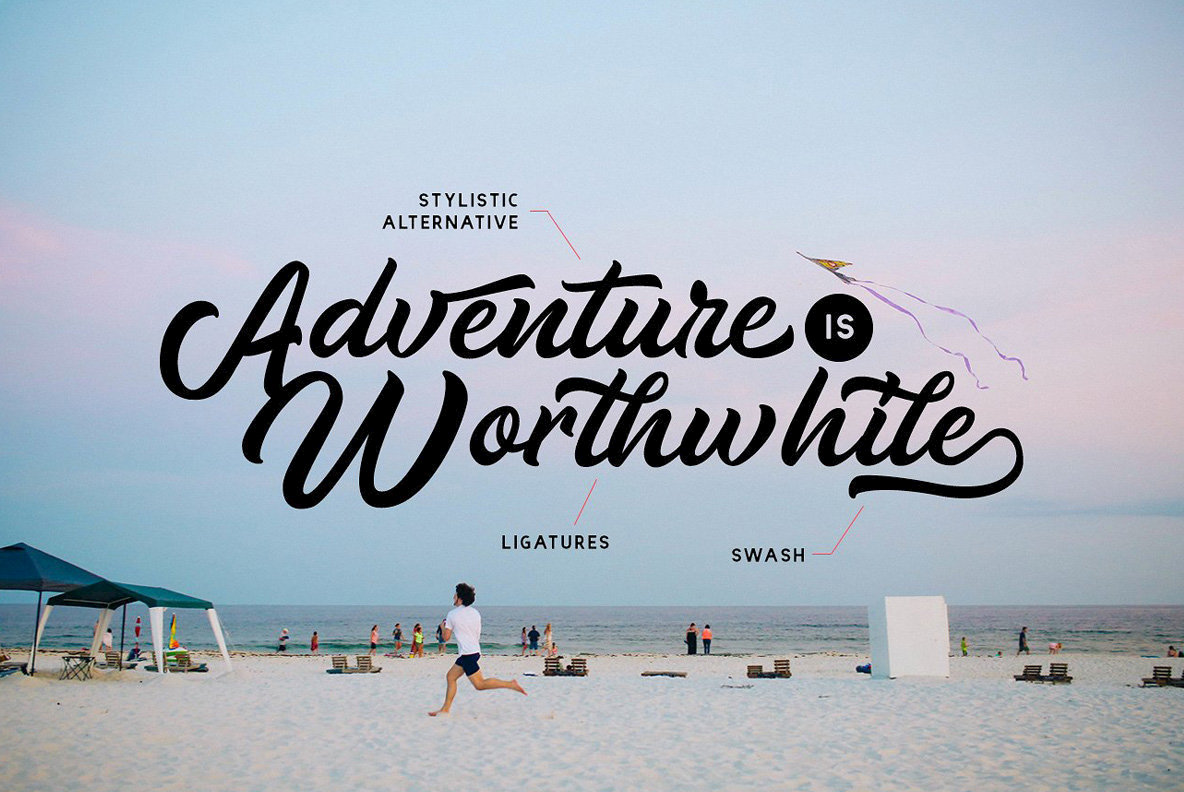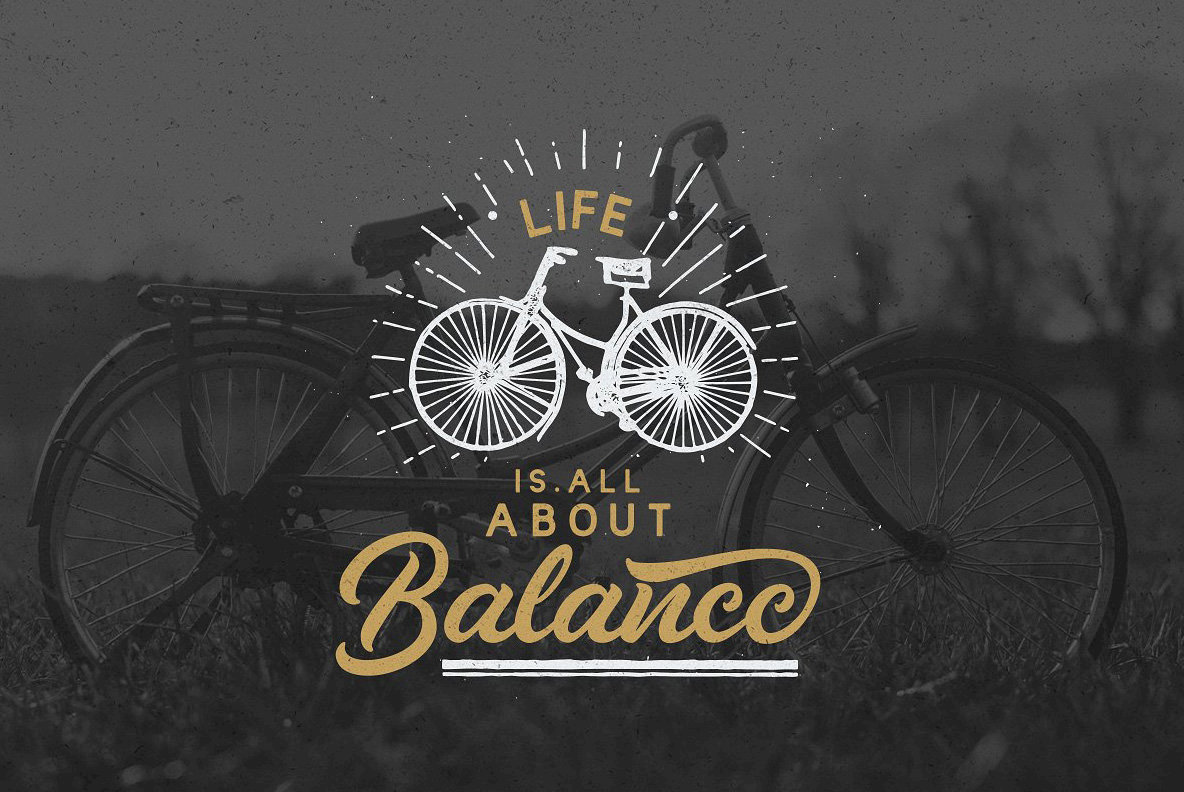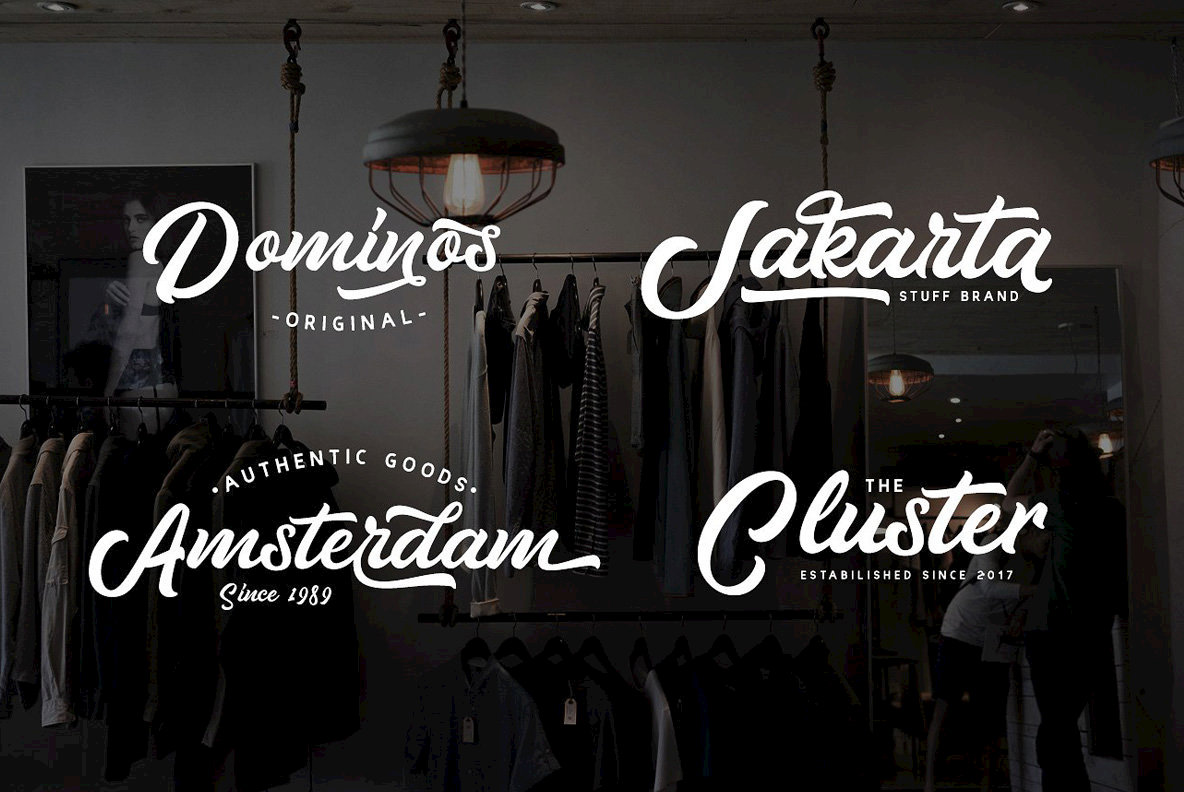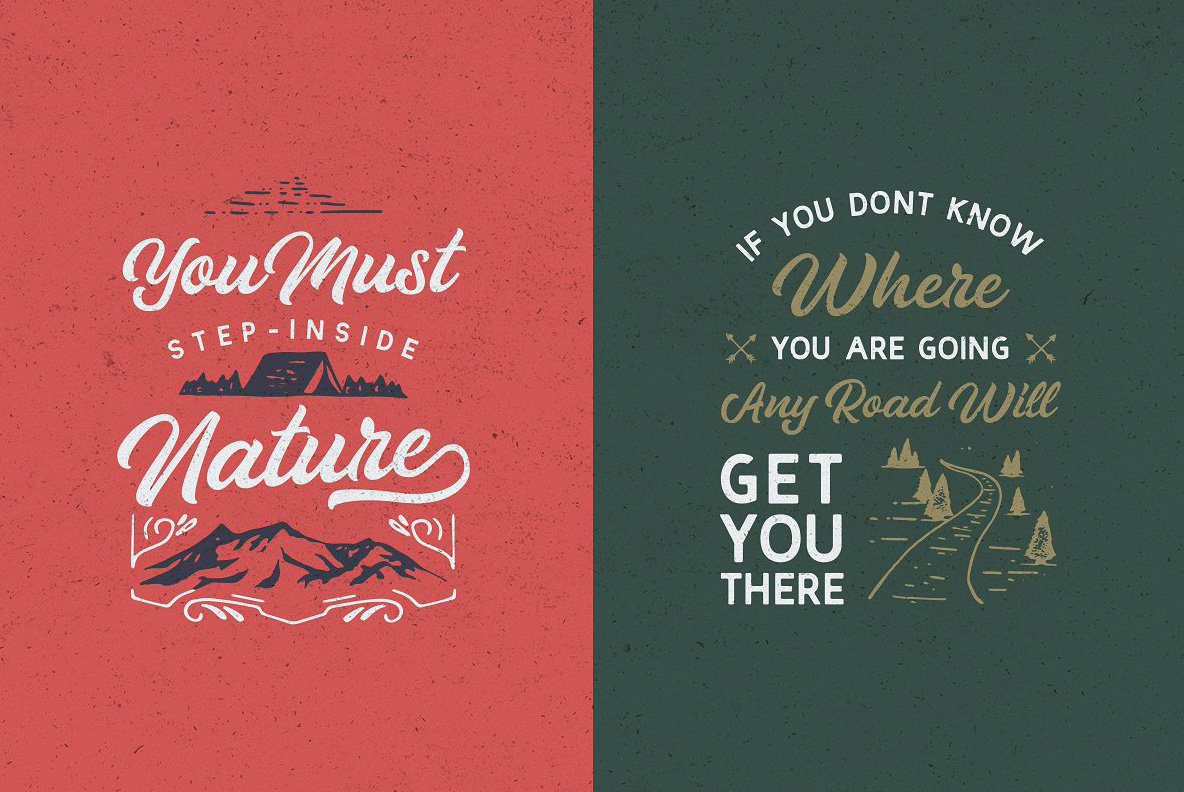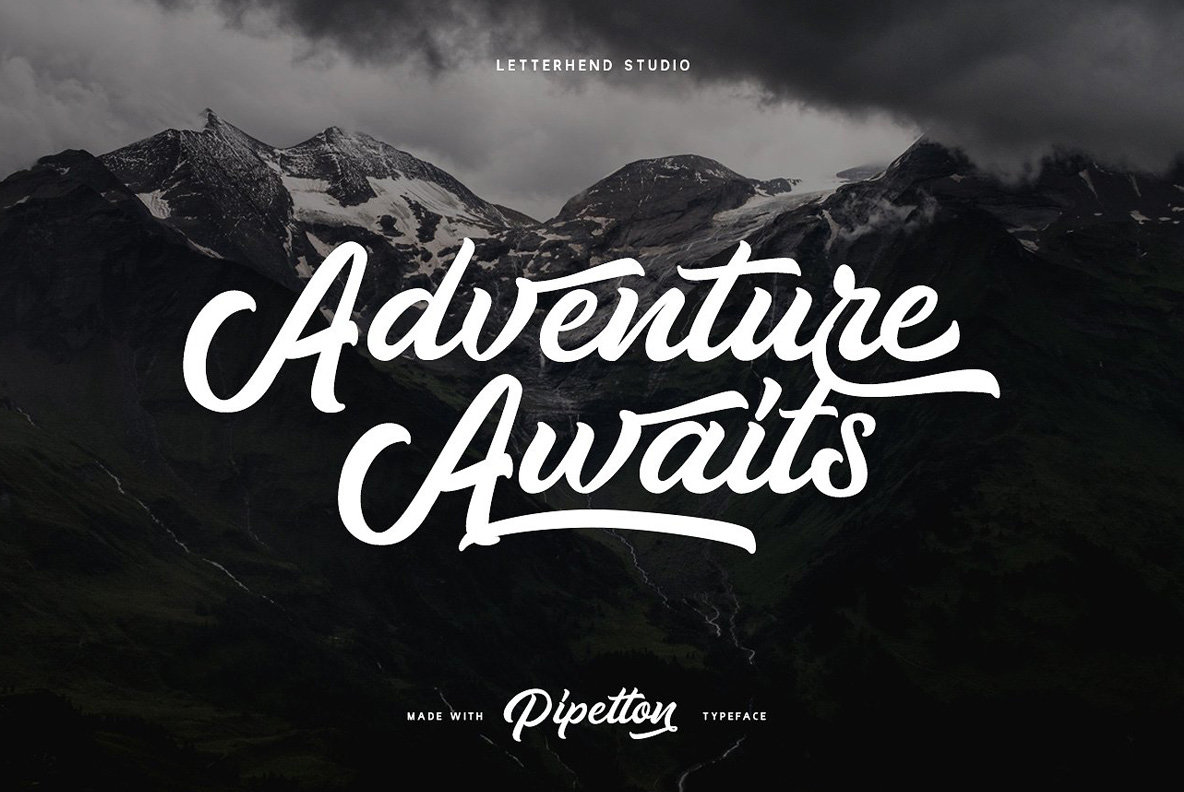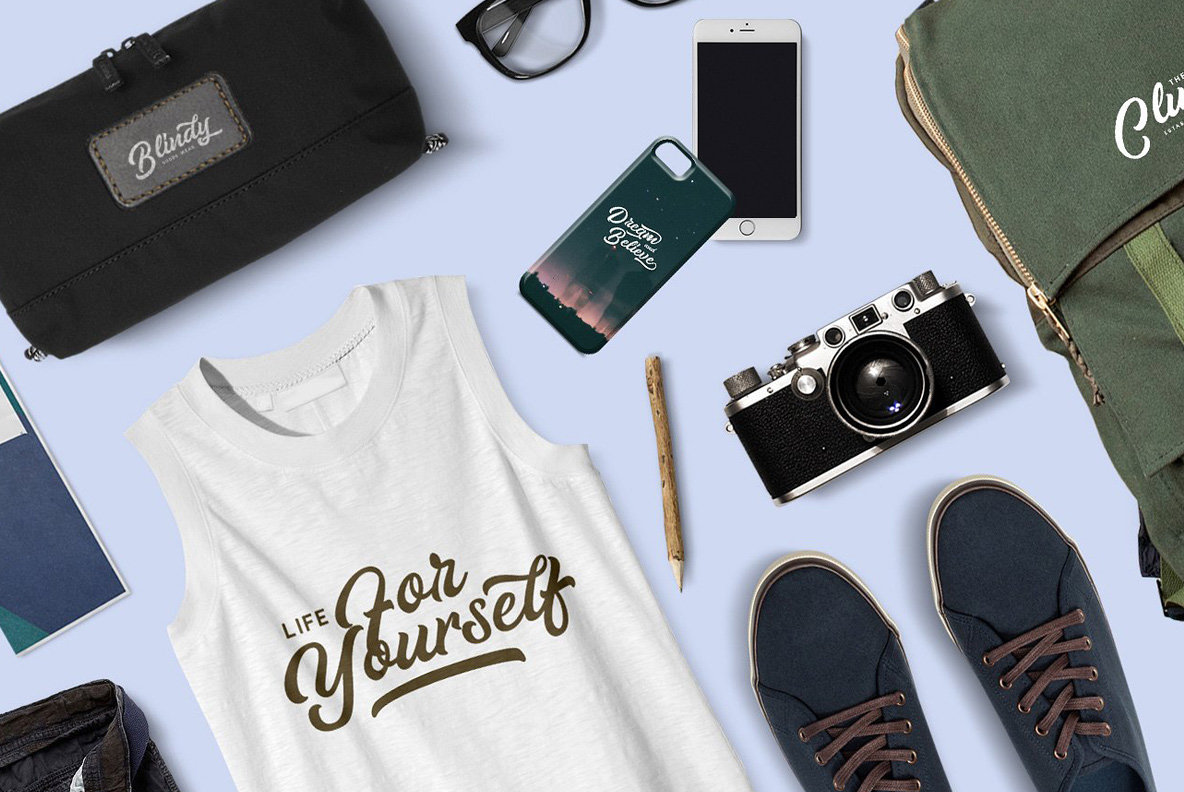
Pipetton is a retro script font design, published by Letterhend Studio. Pipetton contains uppercase, lowercase, punctuations, symbols & numerals, stylistic alternates, ligatures, and swashes.